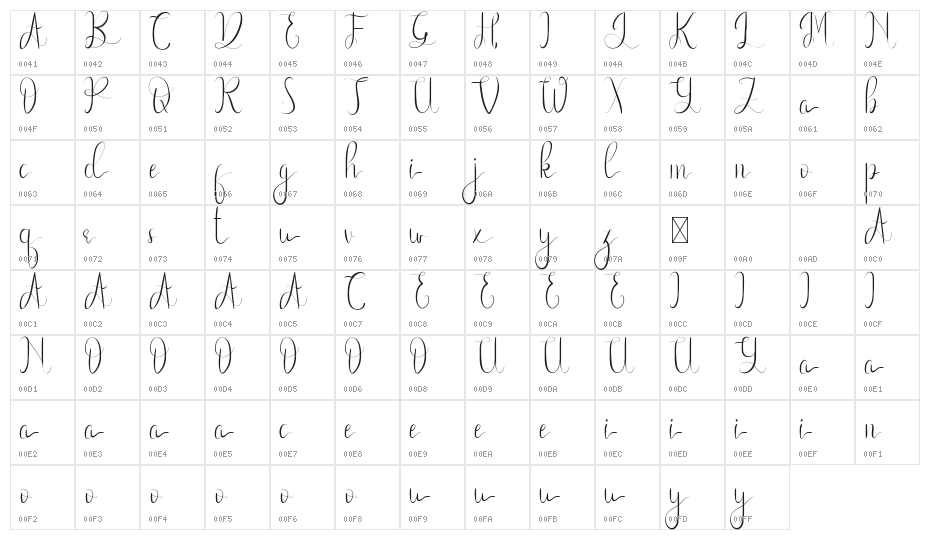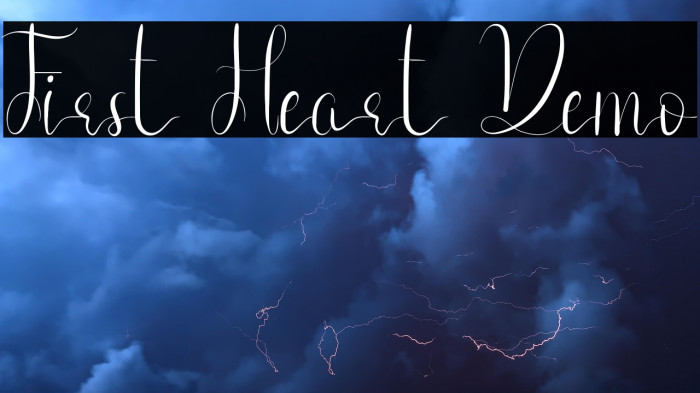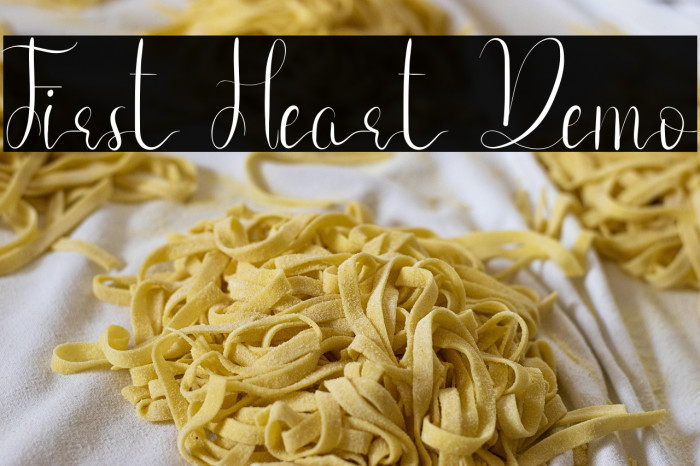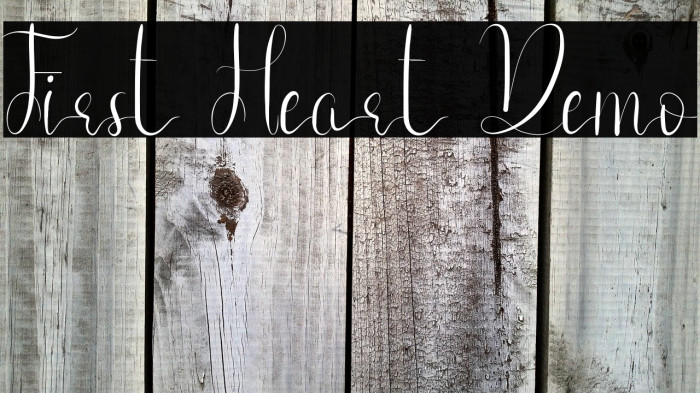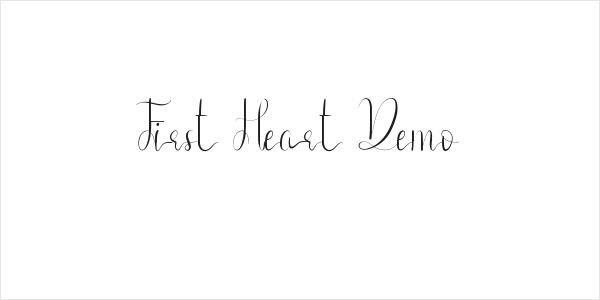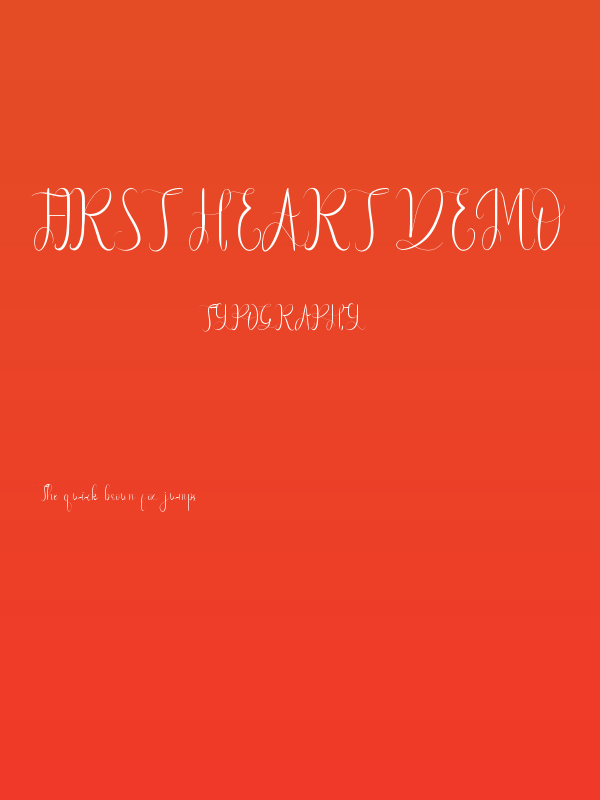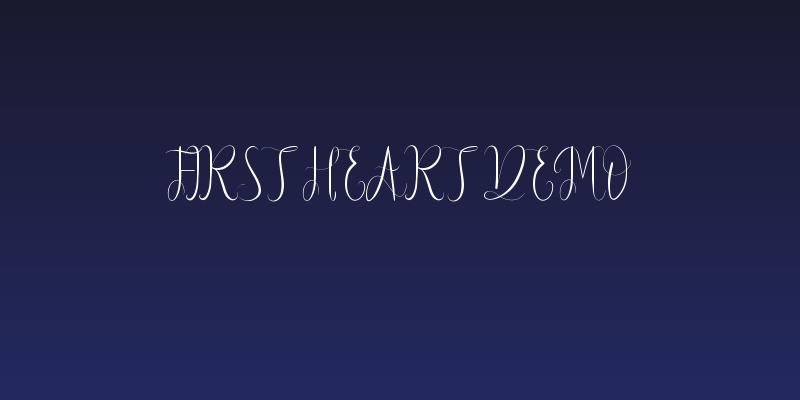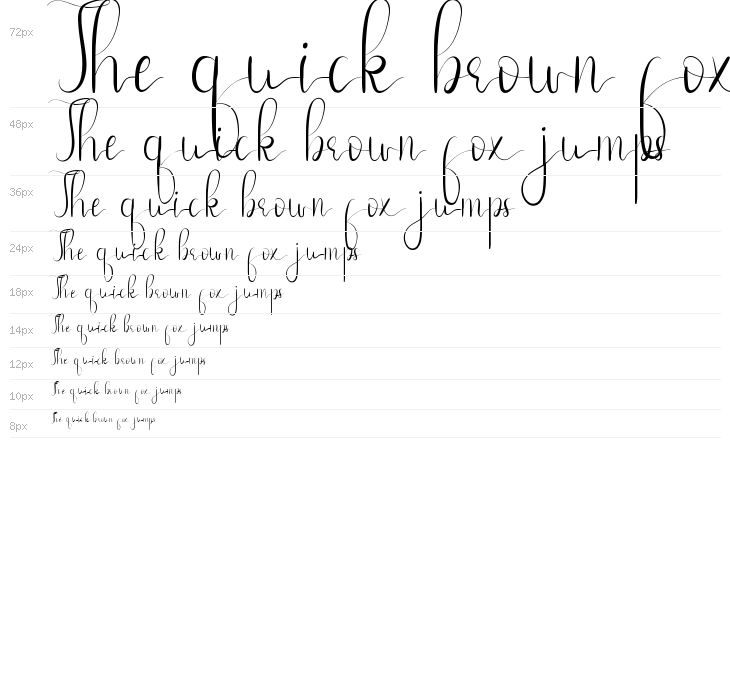
First Heart Demo Font
First Heart Demo Description
This elegant script font features flowing, interconnected letters with a delicate and sophisticated appearance. The uppercase letters are adorned with intricate swirls and loops, adding a touch of romance and flair. The lowercase letters maintain a consistent style, with smooth curves and a graceful flow that enhances readability while maintaining an artistic flair. The numerals and special characters are designed to complement the overall aesthetic, ensuring a cohesive look across all text elements. This font is perfect for projects that require a touch of elegance and sophistication, such as wedding invitations, luxury branding, or high-end product packaging.
| Overall Style | Elegant, Romantic |
| Use Case | Logos, Invitations, Decorative text |
| Proposed Projects | Ideal for wedding invitations, luxury branding, and high-end product packaging. |